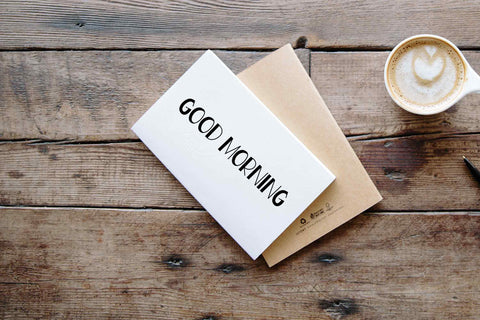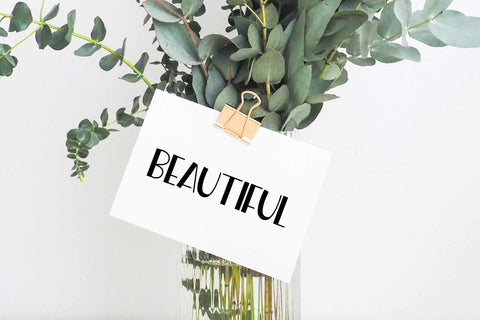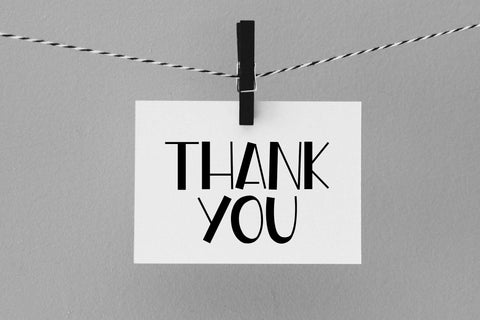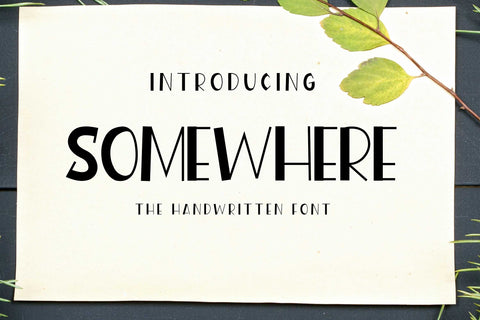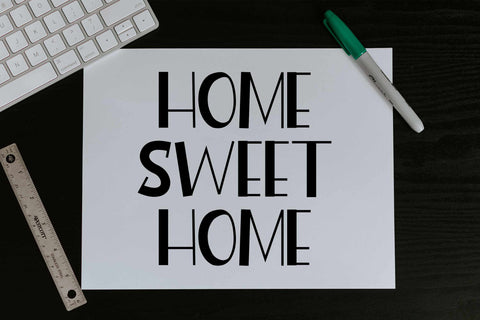
Somewhere
Somewhere is a handwritten font that is simple yet classy. Add this font to your design ideas for a more confident look. Add this cute looking font to any of your favorite love letters, wedding invitations, or design ideas, and you'll be pleasantly surprised. the result.